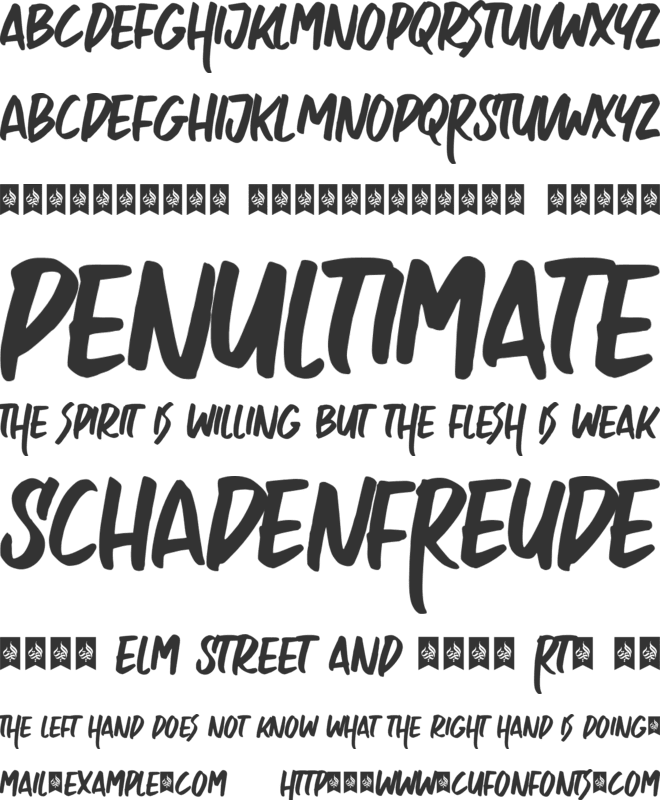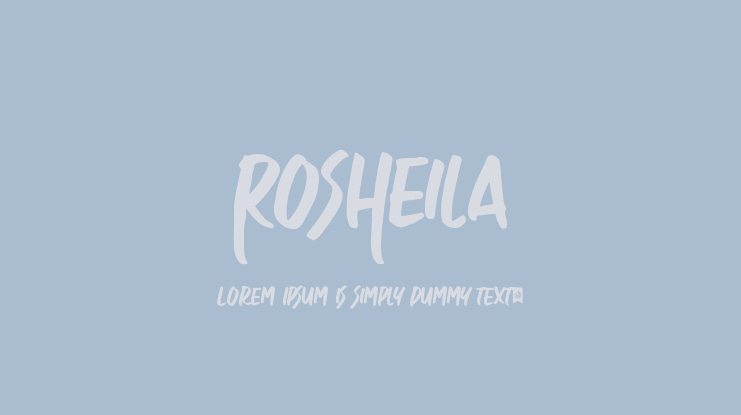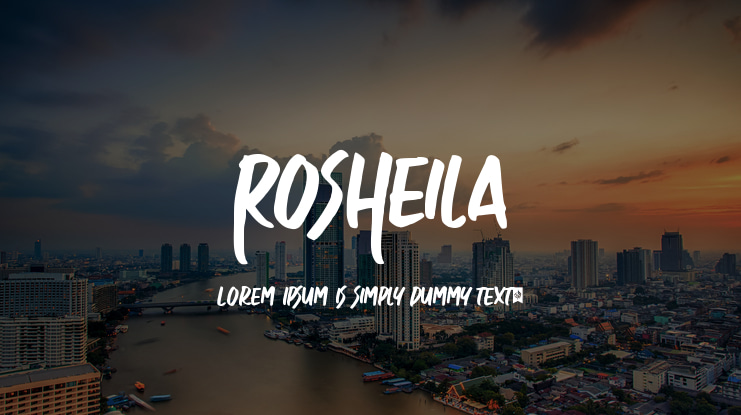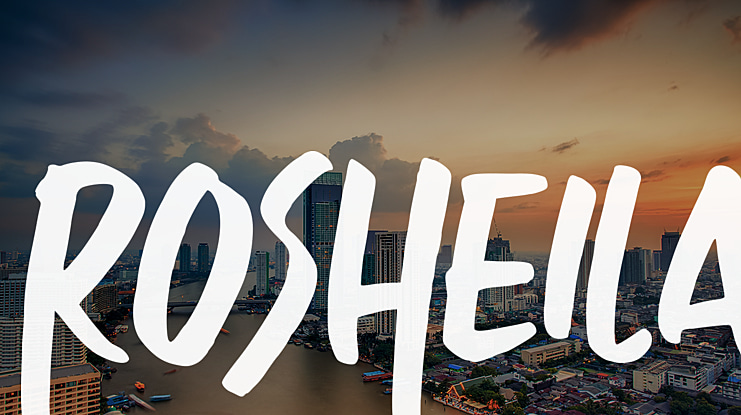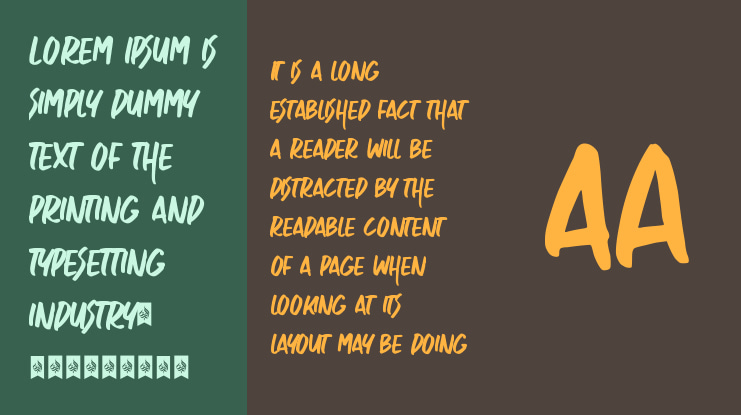
Rosheila Font
Hi Summer Sunshine! Say hello to my Rosheila, a summer scirpt brush font. It's a carefree, summer vibe, casual vibe, and free-spirited brush dispaly font perfect for creating beautiful design! Coming to you with 32 alternate letters to create a perfectly beautiful, casual, hand lettered look.